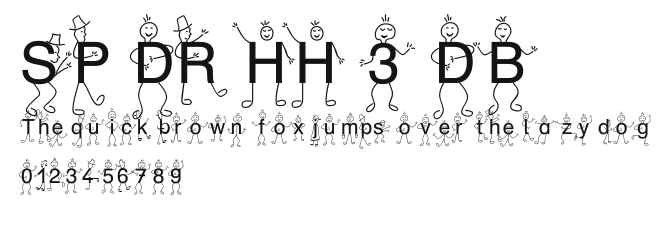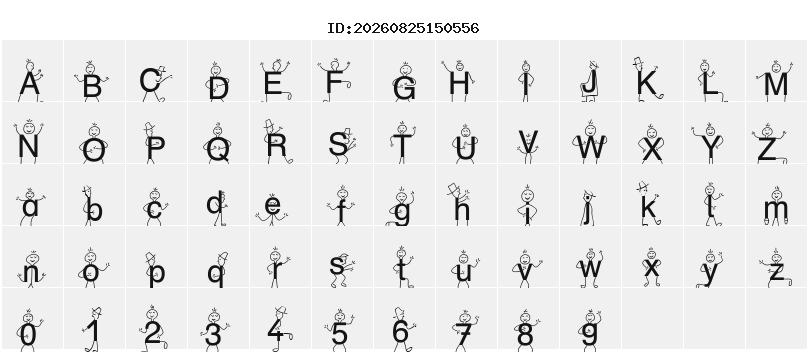
About SP DR HH 3 DB.ttf
SP DR HH 3 DB.ttf is a modern, elegant sans-serif font designed for ultimate readability and visual harmony. Perfect for branding, headlines, web design, and print materials.